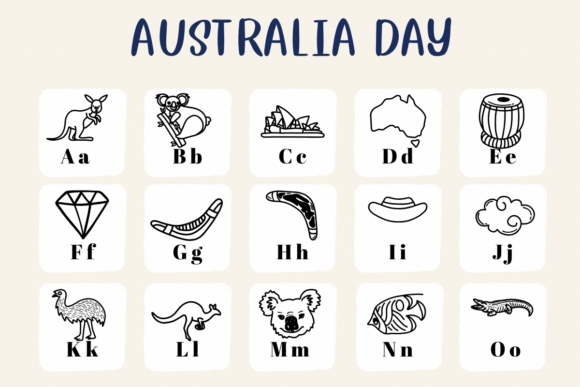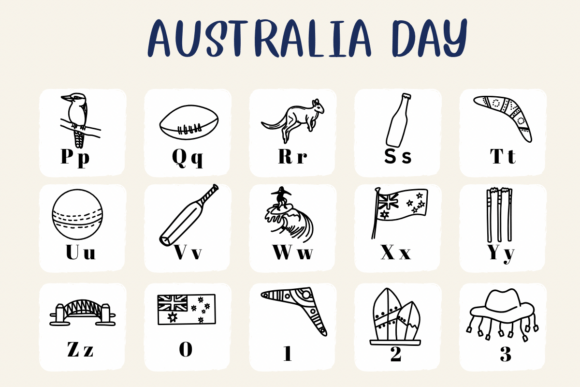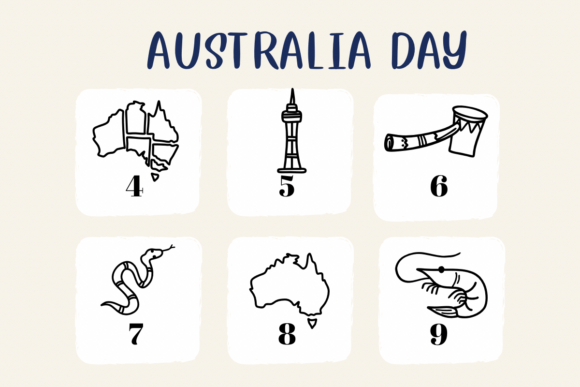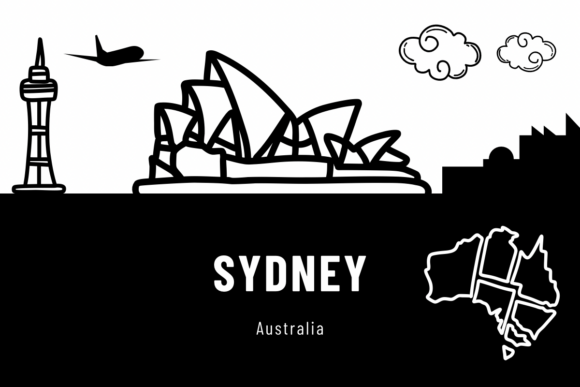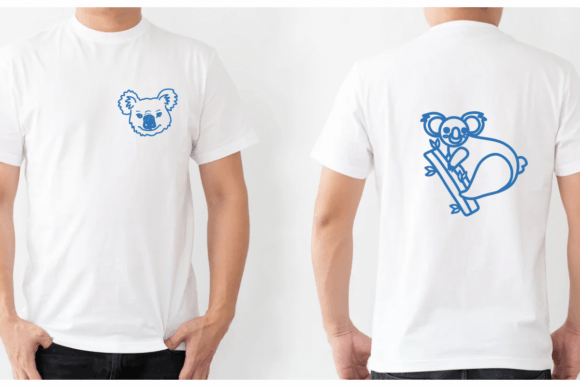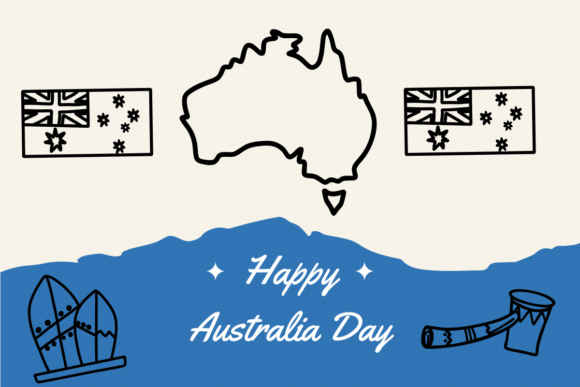
The Ultimate Guide to Australia Day Font: Elevate Your Creative Projects with this Charming Dingbats Font
A Honest Review: What I Love and What to Watch Out For
• Unique and eye-catching sketch style that’s perfect for creative projects ✅
• Versatile dingbats font that can be used for a wide range of designs, from wedding invites to DIY crafts 🌟
• Easy to read and understand, even at smaller font sizes 📚
• Perfect for adding a personal touch to your designs, with a friendly and approachable vibe 👫
• Some characters may not work well at very small font sizes ⚠️
The Story Behind Australia Day Font: Designer Inspiration
The Australia Day font was created by a talented designer who wanted to capture the essence of Australian culture and creativity. Inspired by the country’s stunning landscapes and iconic landmarks, the designer crafted a unique and eye-catching font that’s perfect for adding a touch of Aussie charm to your designs.
What type of projects is the Australia Day font best suited for? The Australia Day font is perfect for creative projects such as wedding invitations, DIY crafts, decorations, logos, and more.
Is the Australia Day font easy to read? Yes, the Australia Day font is designed to be easy to read and understand, even at smaller font sizes.
With its unique sketch style and versatile dingbats design, the Australia Day font is sure to become a favorite among designers, crafters, and creative hobbyists. Whether you’re working on a wedding invitation, a DIY project, or a logo design, this charming font is sure to add a touch of personality and whimsy to your creations.